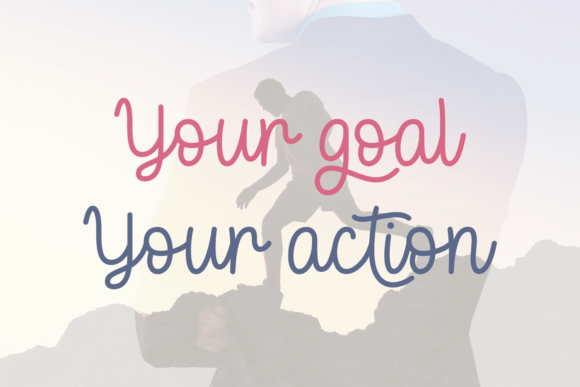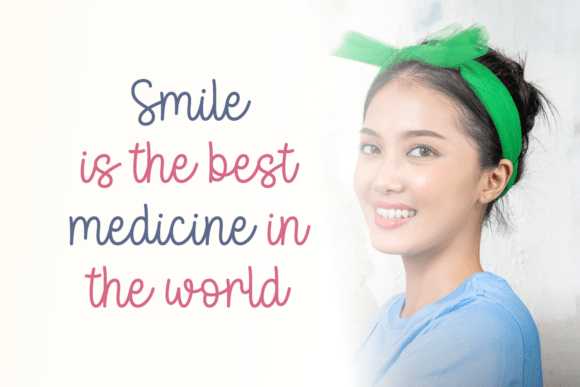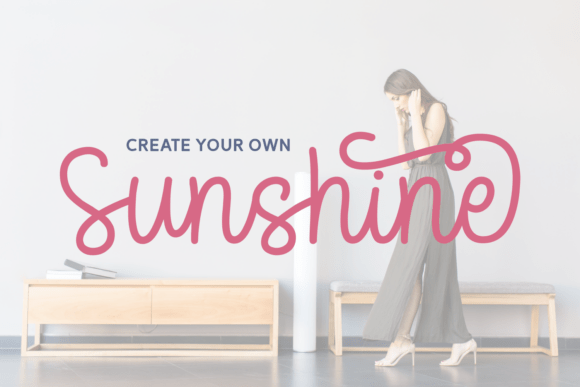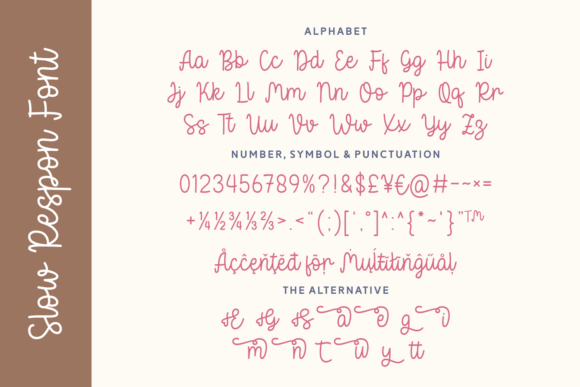
Introduction to Slow Respon Font
Slow Respon is a playful and trendy script font duo with quirky charm and expressive strokes.
Great for social media posts, casual branding, stickers, and fun apparel designs, this font adds personality and creativity wherever itโs used .
Key Features of Slow Respon Font